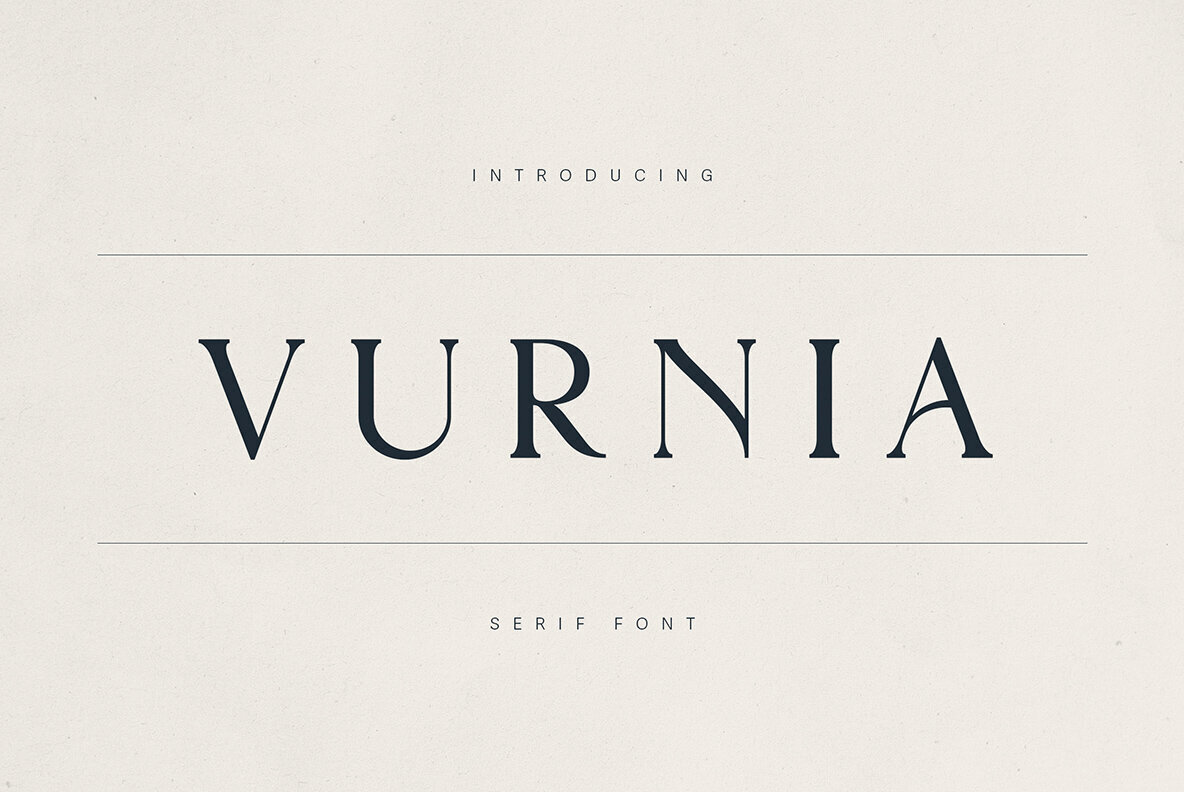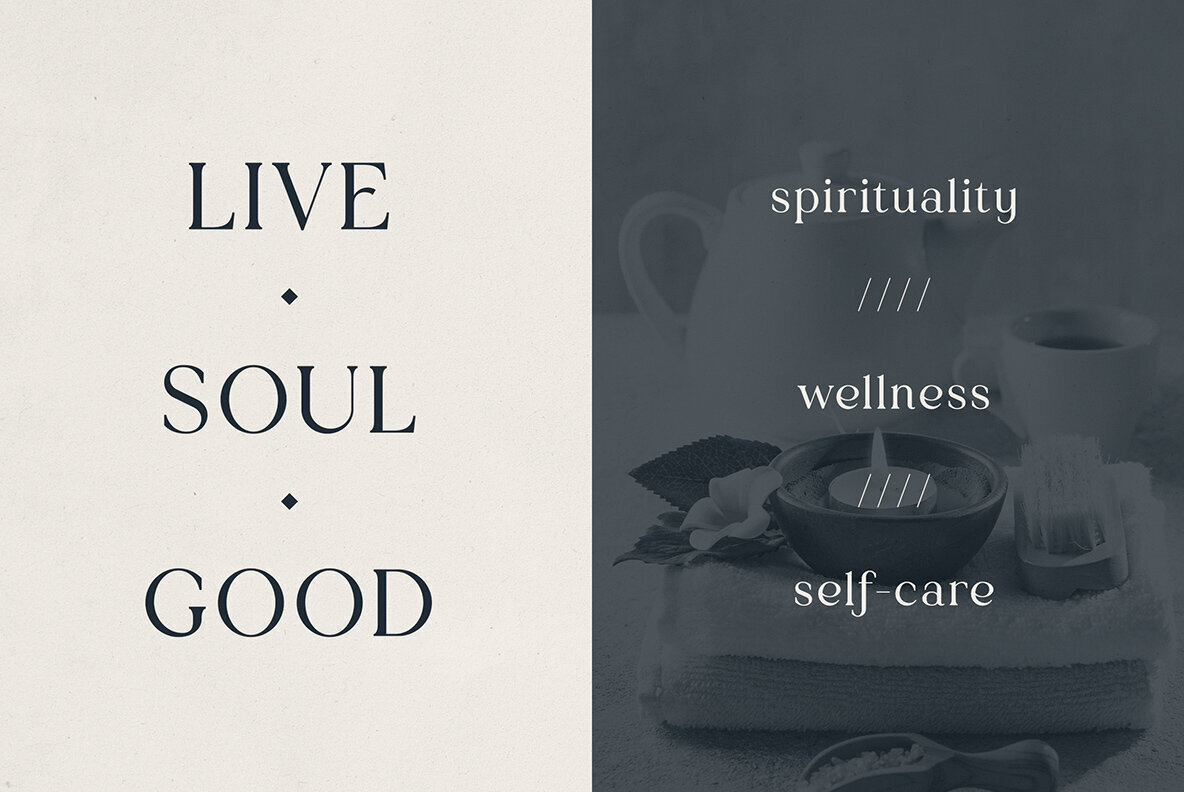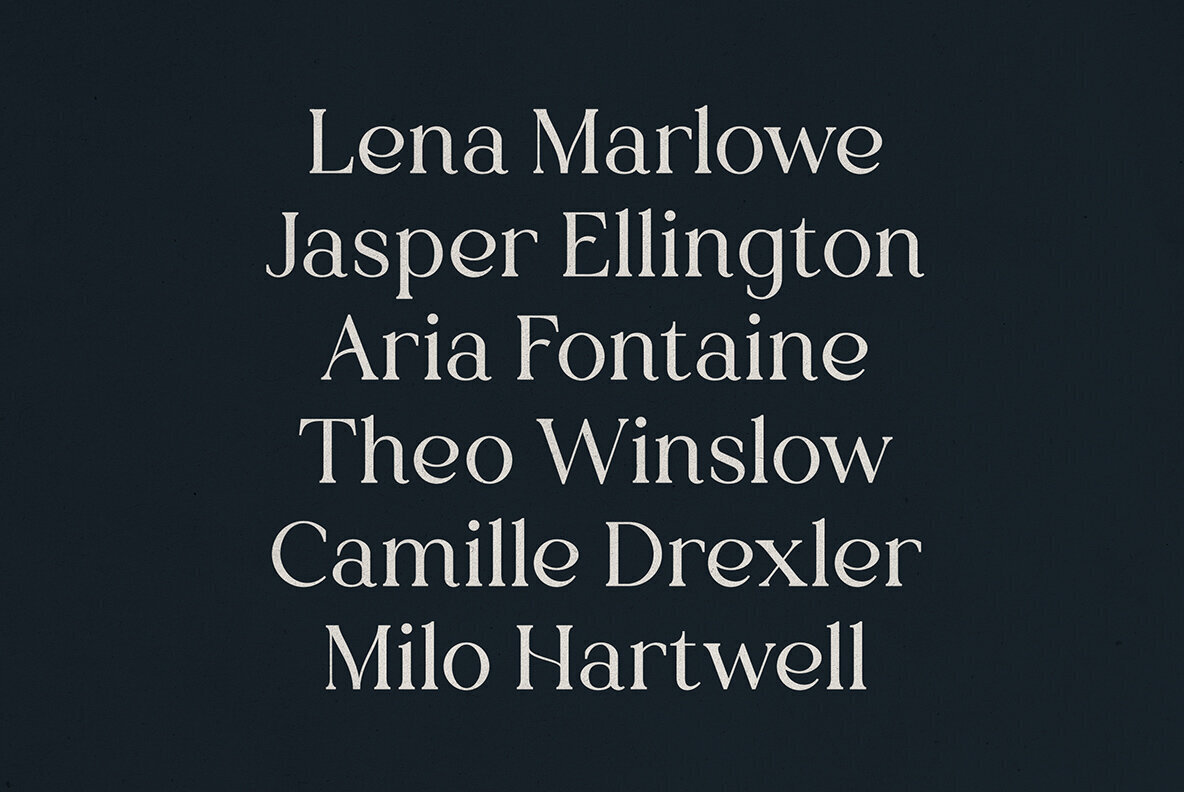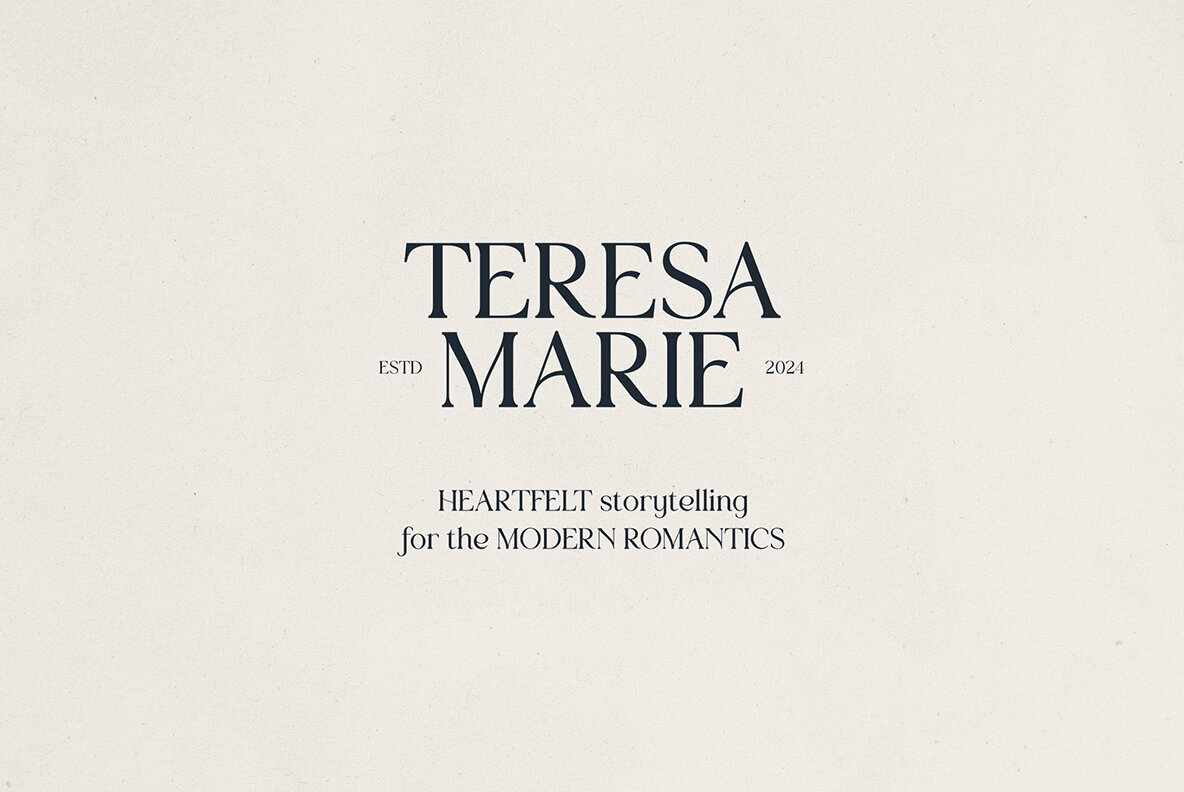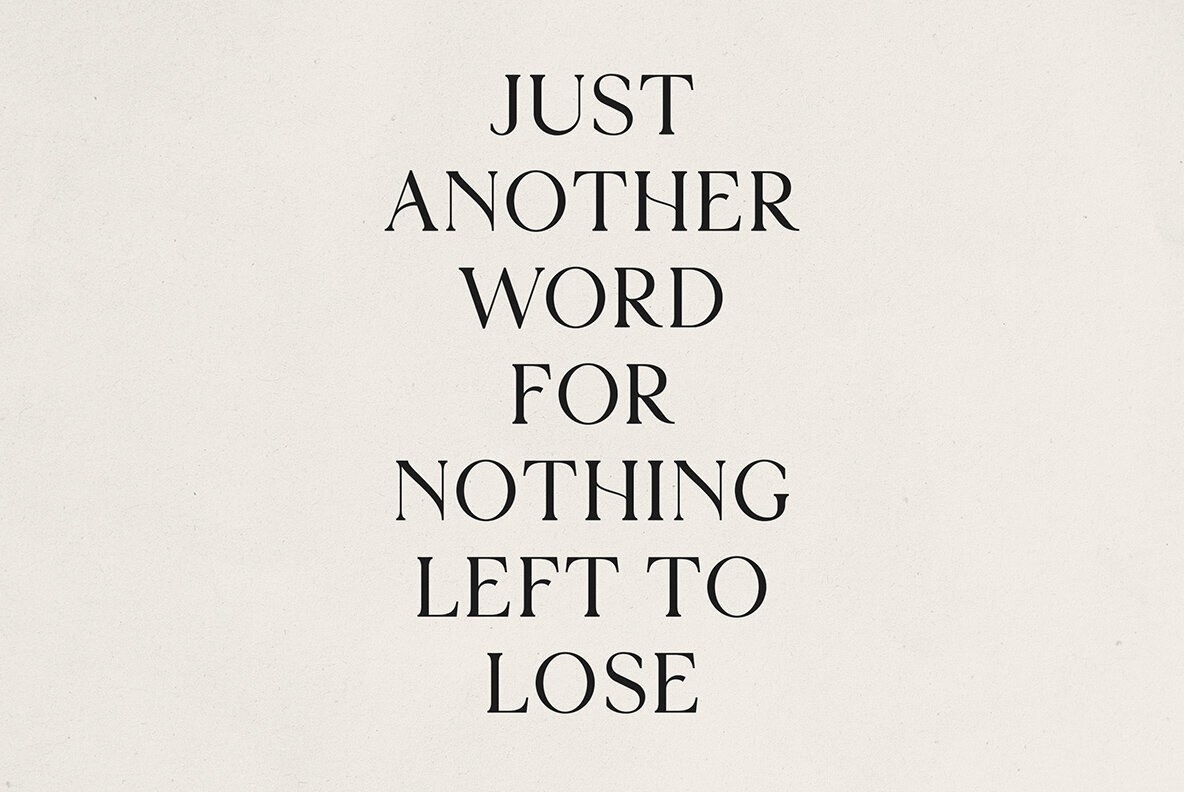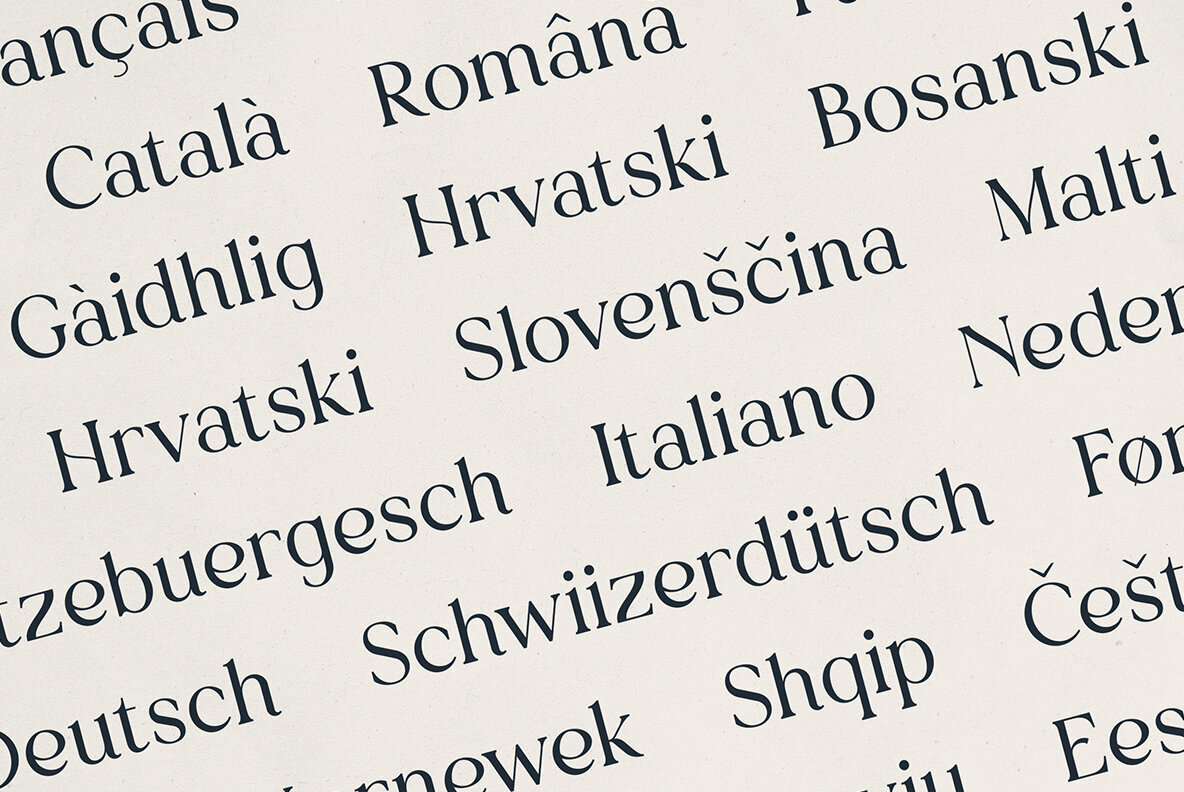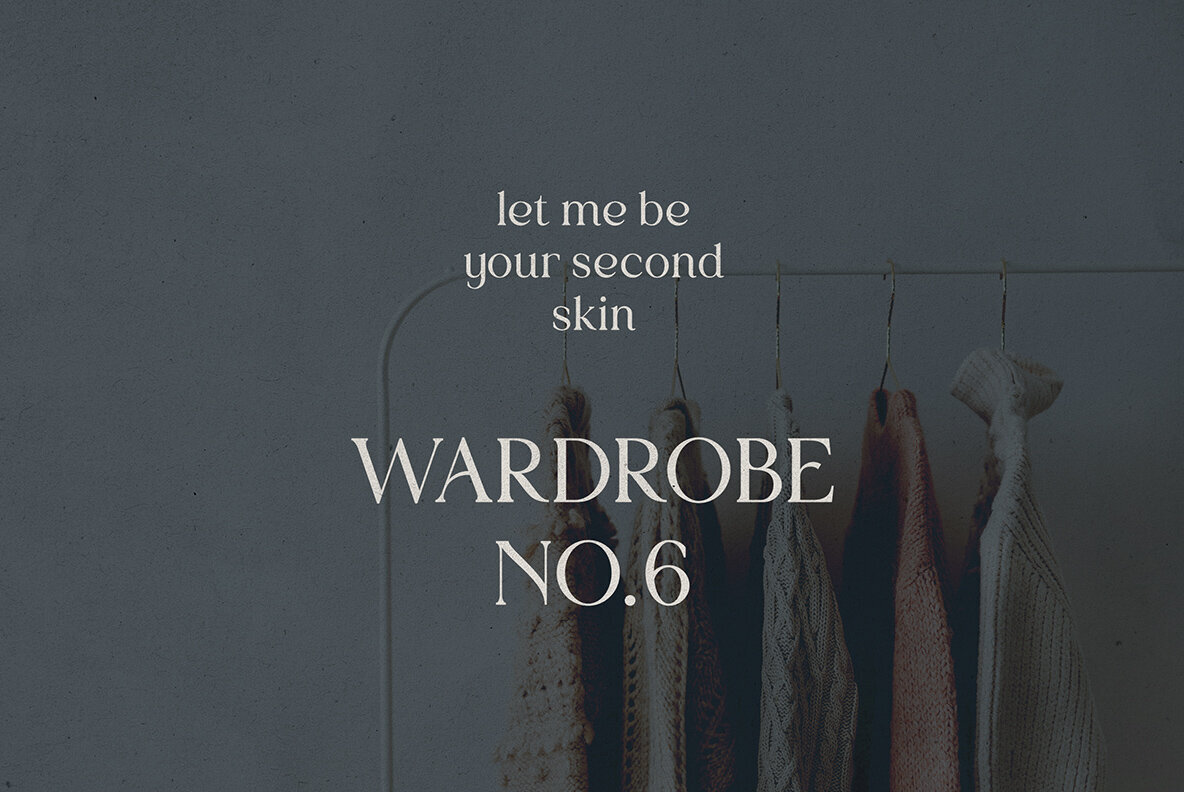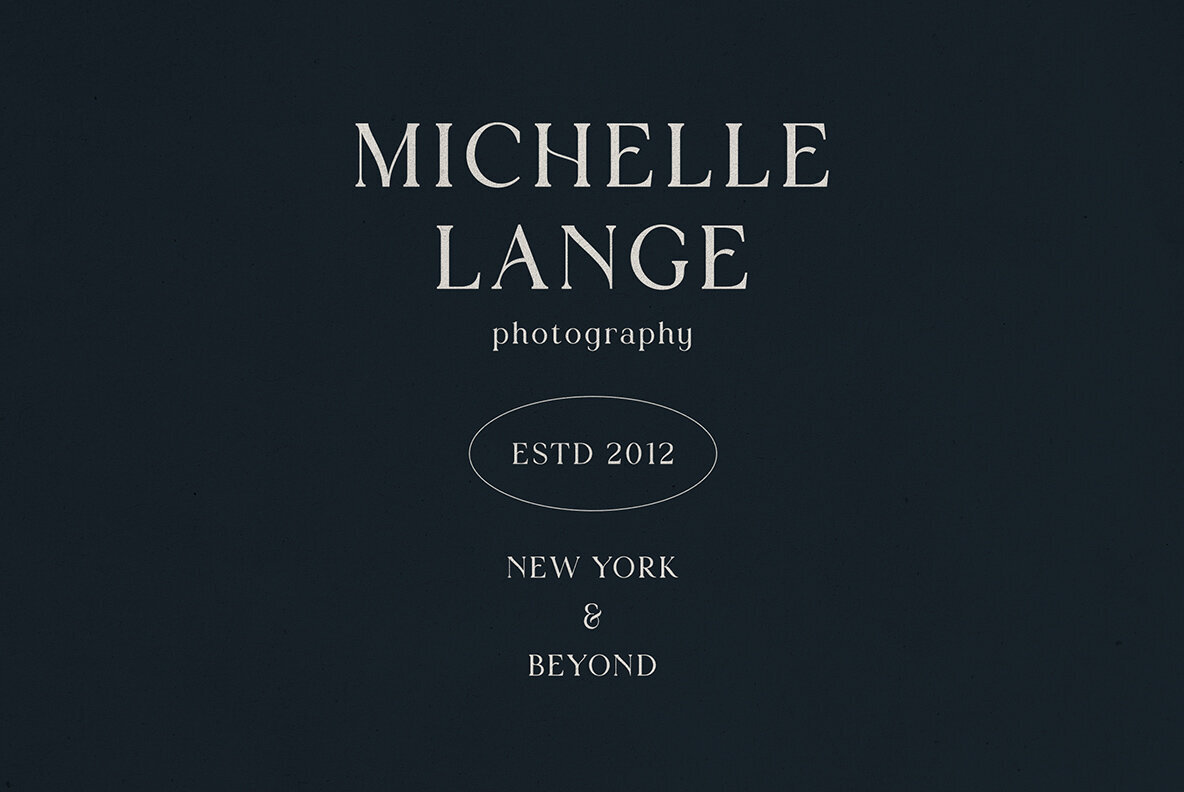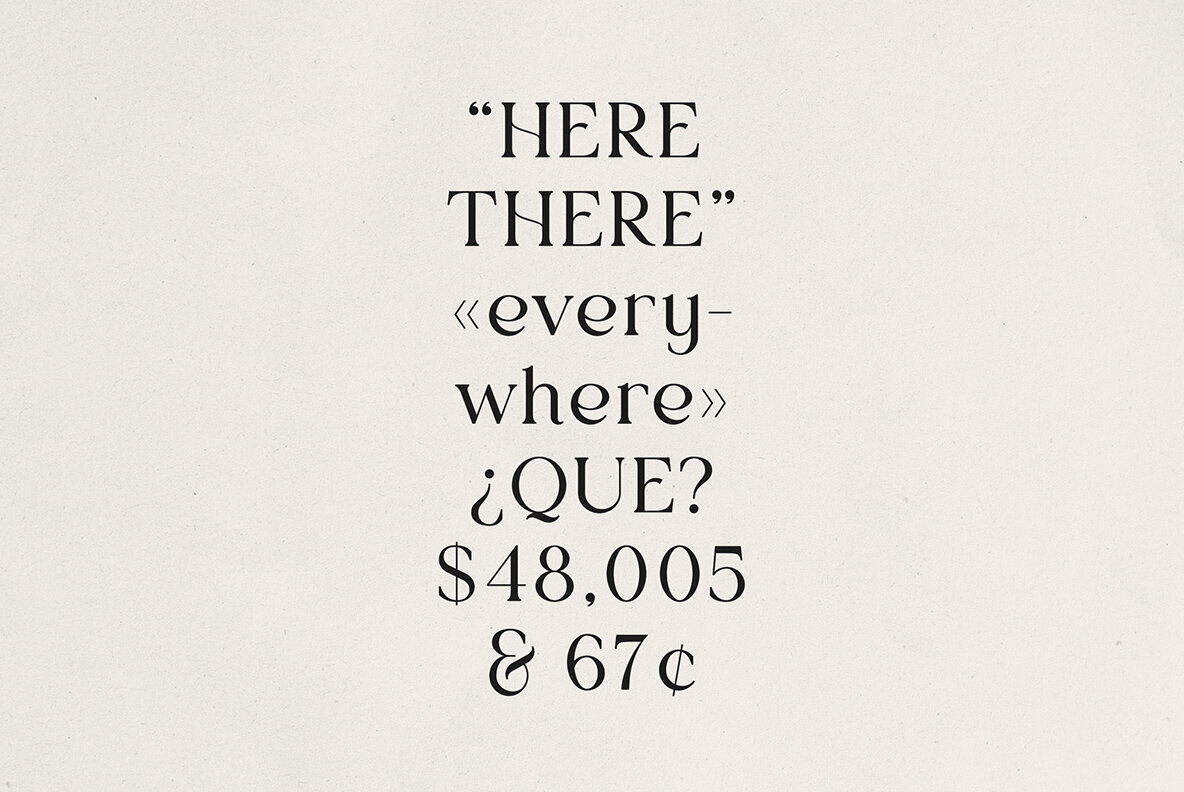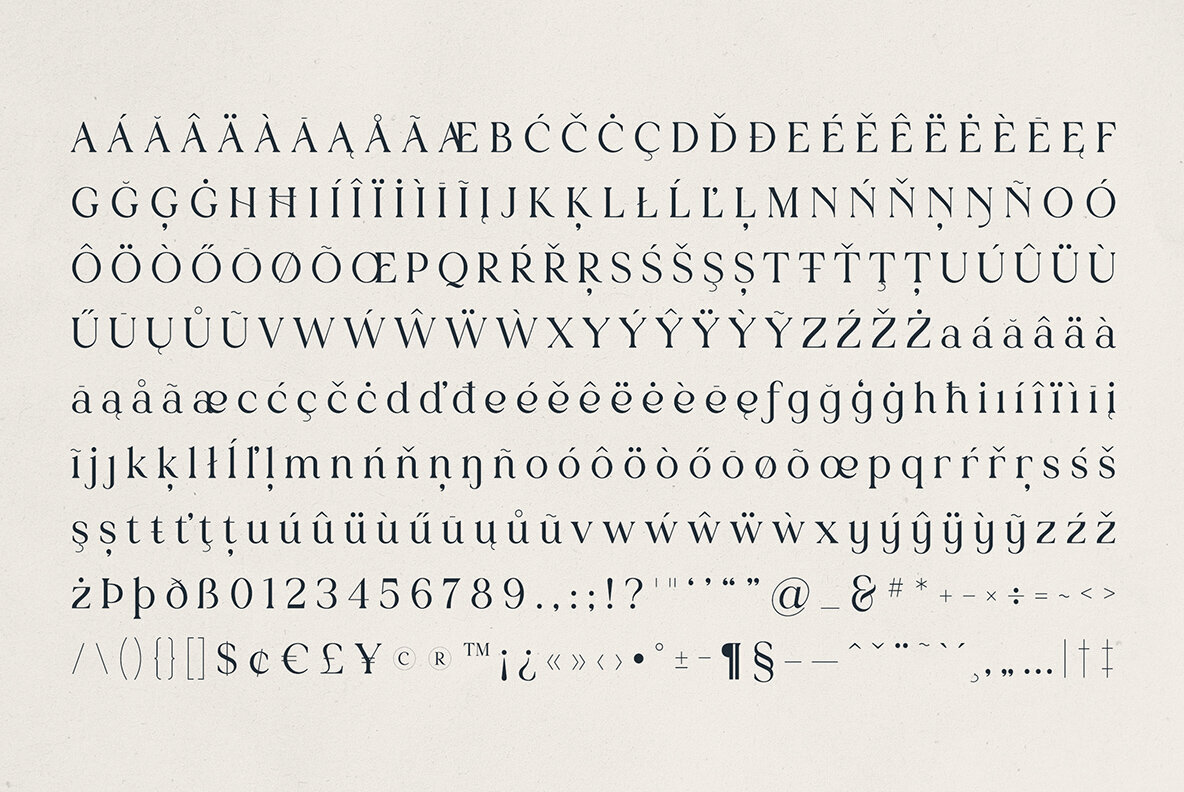
Vurnia Font
Vurnia
Discover Vurnia, the elegant serif typeface designed to bring timeless charm to your creative projects. Perfect for those in wellness, fashion, and storytelling spaces, Vurnia elegantly balances classic serif details with modern appeal. Its graceful curves and well-defined serifs make it the perfect choice for high-end, sophisticated branding. With Vurnia, your work will stand out with both timeless grace and exceptional legibility. Vurnia offers impressive versatility, supporting over 80 languages, making it ideal for global brands. From logos and editorials to packaging and social media, this typeface adds a romantic yet contemporary touch. Whether your work revolves around spirituality, photography, or lifestyle, Vurnia ensures your design language conveys subtle sophistication, appealing to the modern romantic.Elegant Sophistication with Vurnia